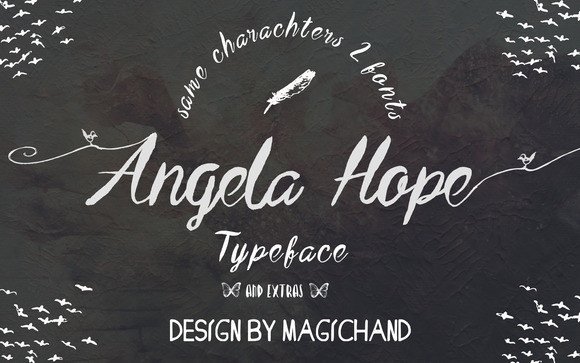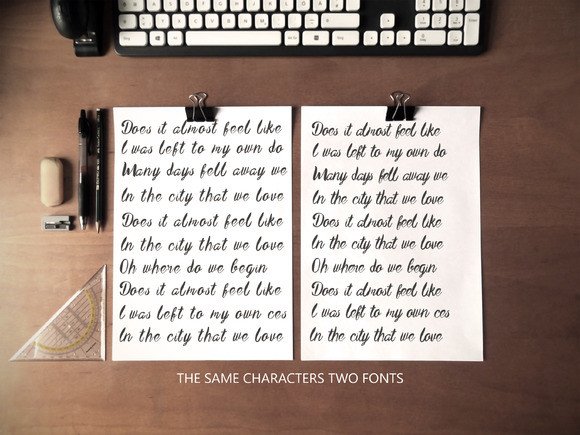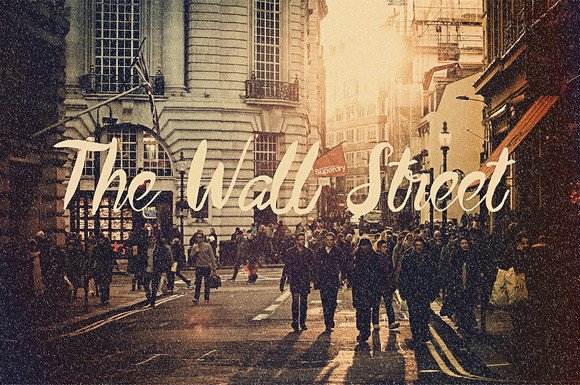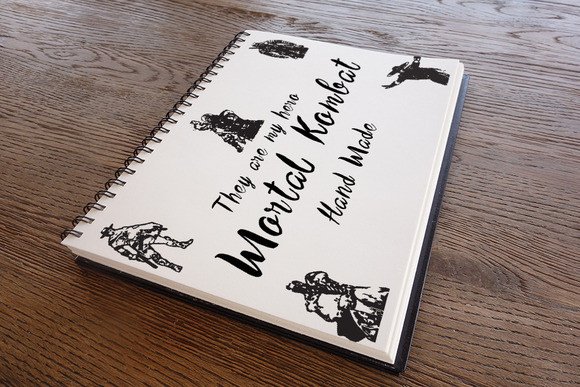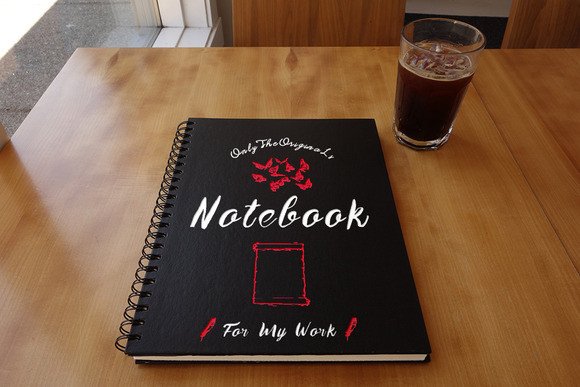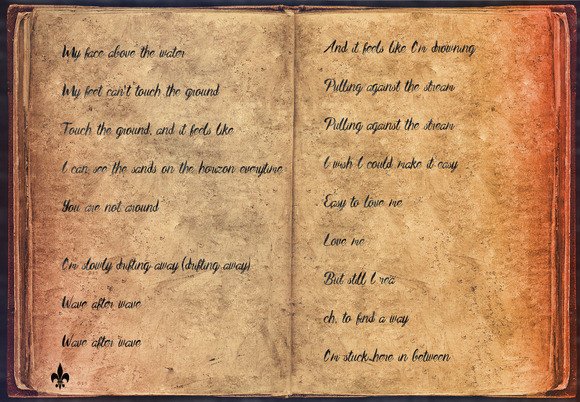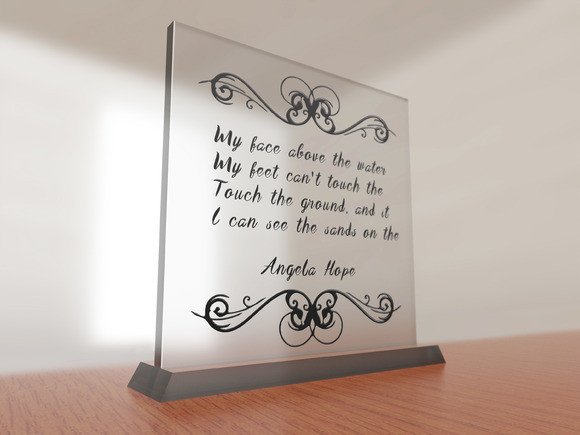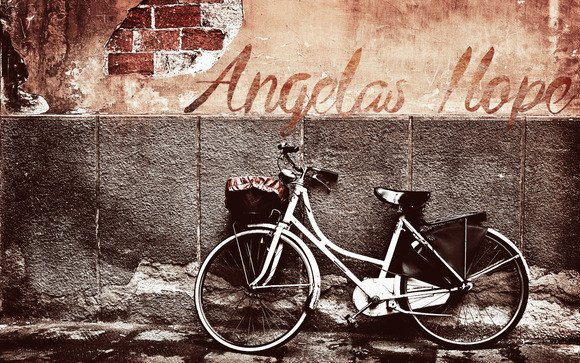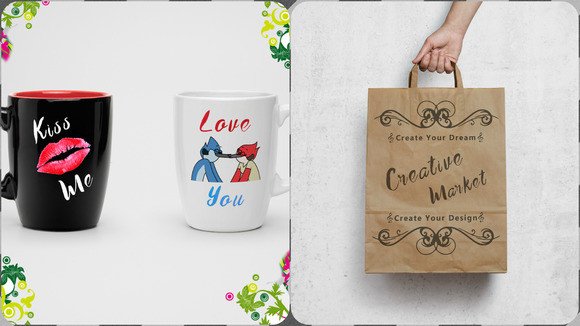
Angela Hope Font
About Angela Hope Font
Angela hope is a beautiful typeface. Can be used for various purposes such as posters, t-shirts, letterheads, cafes, and much more!